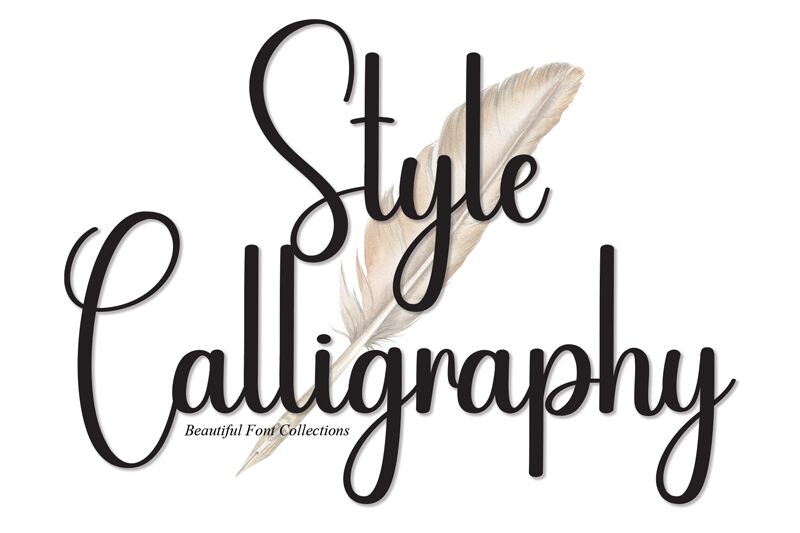
Style Calligraphy
Style Calligraphy by Scratchones brings the timeless elegance of handwritten script to the digital realm. Its fluid, sweeping strokes evoke the charm of traditional calligraphy, while its condensed form adds a modern twist, making it both space-efficient and striking. The font's aesthetic is one of sophisticated flair, with each letter crafted to convey a sense of individual artistry.
Ideal for invitations, branding, and personal correspondence that demand a touch of personality, Style Calligraphy stands out in contexts where the human touch is prized. Its unique blend of classic grace and contemporary compression makes it a versatile choice for designers looking to infuse their projects with warmth and character.